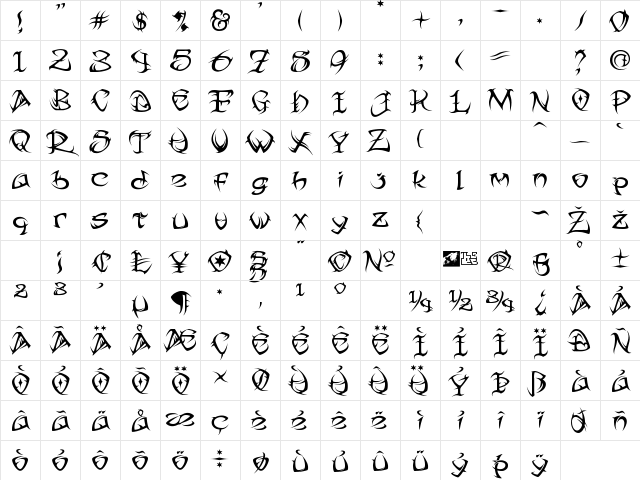
Tribal Two Regular Free Font
Tribal Two Regular
Designer: WolfBainX
Design Context for Tribal Two
Tribal Two is a composed and adaptable typeface that performs quietly and consistently across a wide range of design contexts.